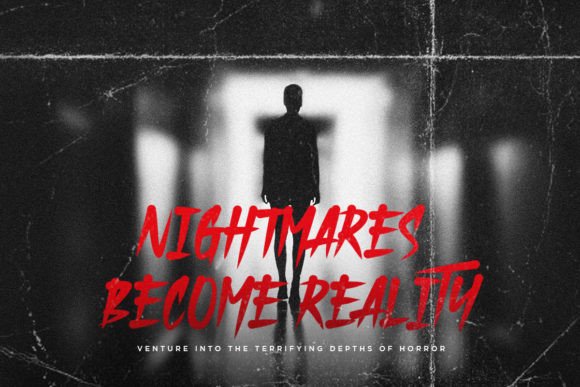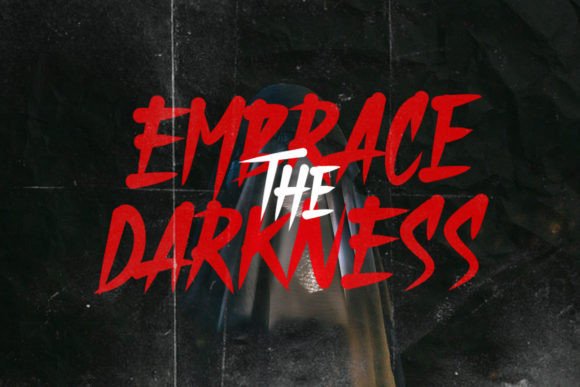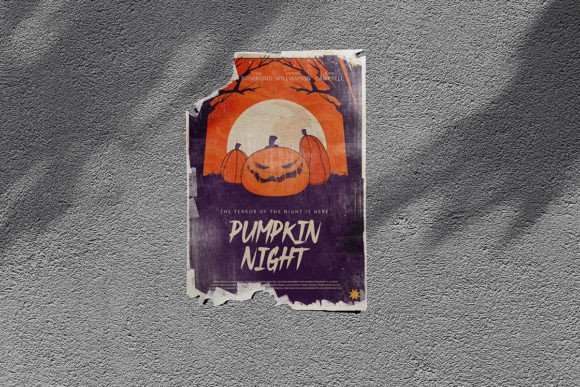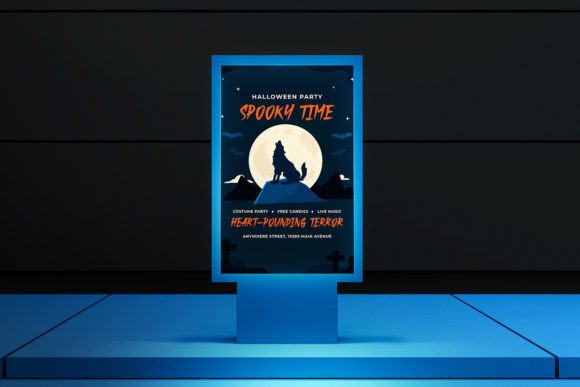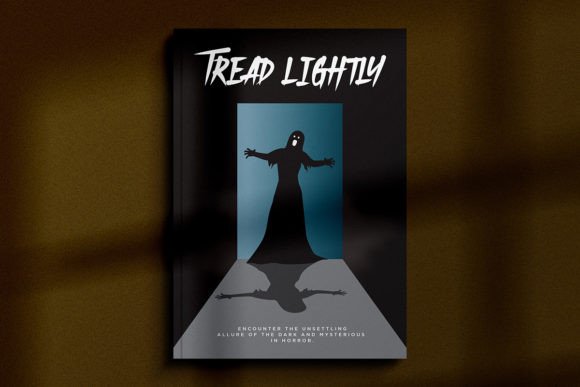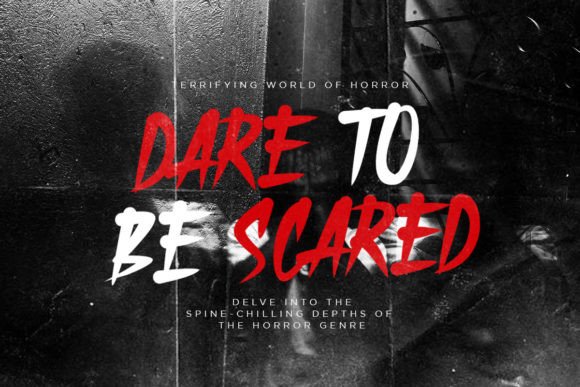
Introduction to Dughon Font
As a designer, there’s nothing quite like the thrill of working on a creative project that brings out your darker side. For many of us, the spooky season is the perfect excuse to unleash our inner horror enthusiasts and push the boundaries of our design skills. And what better way to do that than with the Dughon Font, a hauntingly beautiful typeface that’s sure to send shivers down the spines of your audience.
With its unique blend of brushstroke textures and minimalist design, the Dughon Font is the perfect addition to any design project that needs a touch of horror and trash style. Whether you’re creating invitations, postcards, posters, or headings for a Halloween event, this font is sure to make a lasting impression.
Key Features of Dughon Font
- Unique, hand-drawn design suitable for creative projects and artistic endeavors.
Honest Review: Dughon Font
One of the things I love about the Dughon Font is its high quality and unique aesthetic. It’s perfect for creative projects where you need a font that stands out from the crowd. The font is highly customizable, allowing you to adjust the spacing and style to suit your design needs.
Overall, I’m very impressed with the Dughon Font. It’s a great addition to any designer’s toolkit, and its unique aesthetic makes it perfect for creative projects. Just be aware of the limitations, and you’ll be good to go!
To get the most out of the Dughon Font, use it in creative projects where a unique and stylish design is required. Experiment with different font sizes and styles to achieve a professional look. Additionally, combine the font with other design resources, such as images and graphics, to create a visually appealing design.
The Dughon Font is ideal for use in various creative projects, including logos, business cards, brochures, and posters. Its high-quality design and transparent background make it an excellent choice for designers looking for a free download that meets their design needs.